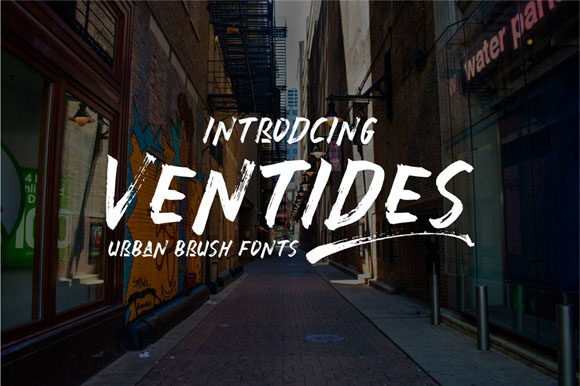
Introducing Ventides Font, a display font family that exudes captivating charm and sophistication. This meticulously crafted font, brought to you by Flamde Studio, is designed to leave a lasting impression on your audience.
Crafted with a keen eye for detail, Ventides boasts a unique capital hand brush style that adds a touch of elegance and personality to any design. Its delicate strokes and expressive swashes create a sense of movement and energy, drawing the reader's attention to your message.
With Ventides, you'll have access to an array of creative possibilities. Experiment with its stunning uppercase letters to craft eye-catching logos and brand identities. Infuse your handwritten quotes with a touch of artistry, and elevate your product packaging with a touch of sophistication.
Unleash your creativity in the world of blog design and modern advertising, where Ventides' versatility truly shines. Craft invitations that exude warmth and charm, or create art quotes that resonate with your audience. Adorn your home décor with meaningful phrases, or make a statement with book and cover titles that leave a lasting impression.
Celebrate special events, milestones, and birthdays with Ventides' enchanting touch. Personalize mugs, pillows, and t-shirts with custom lettering that reflects your unique style. Whether you're designing for print or digital media, Ventides is the perfect choice for adding a touch of elegance and charm to any project.
With its endless applications, Ventides is the ultimate font for brush lettering enthusiasts and creative professionals alike. Explore the world of possibilities and let your imagination soar with this captivating display font. Embrace the beauty of Ventides and transform your designs into masterpieces that leave a lasting impact.